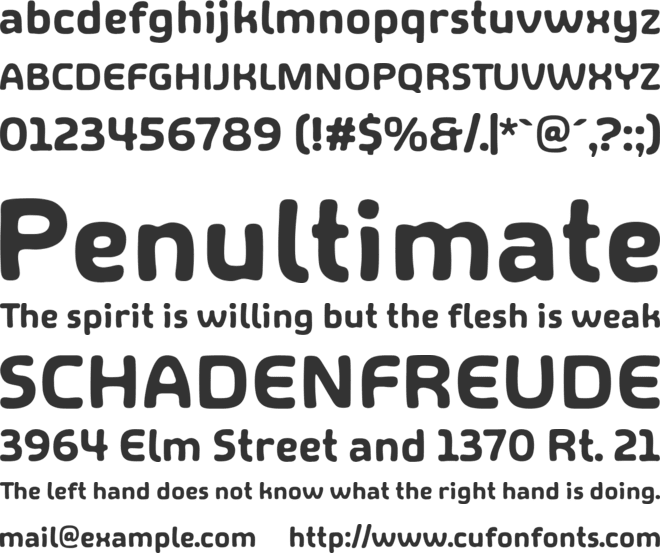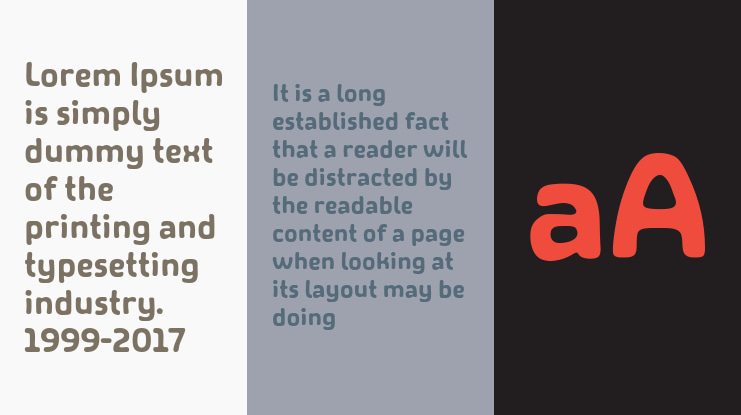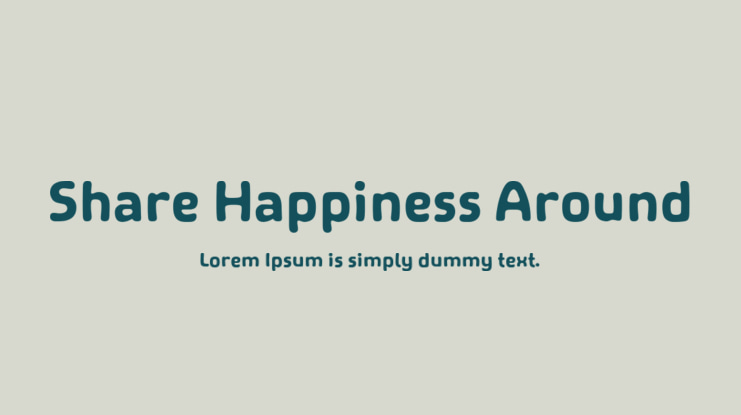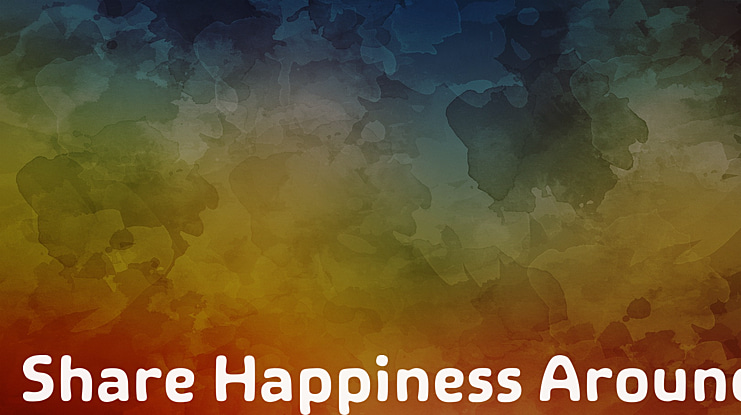
Share Happiness Around Font Family
Share Happiness Around Font, just as its named, it features feeling smooth, and represents a blending sociable mixture of handmade and a sans serif. The smooth of rounded letters give Share Happiness Around a friendly character. Its very legible which makes it pleasant on the eyes.
It comes in 4 different versions: Share Happiness Regular & Italic; SHA Outline & Italic.